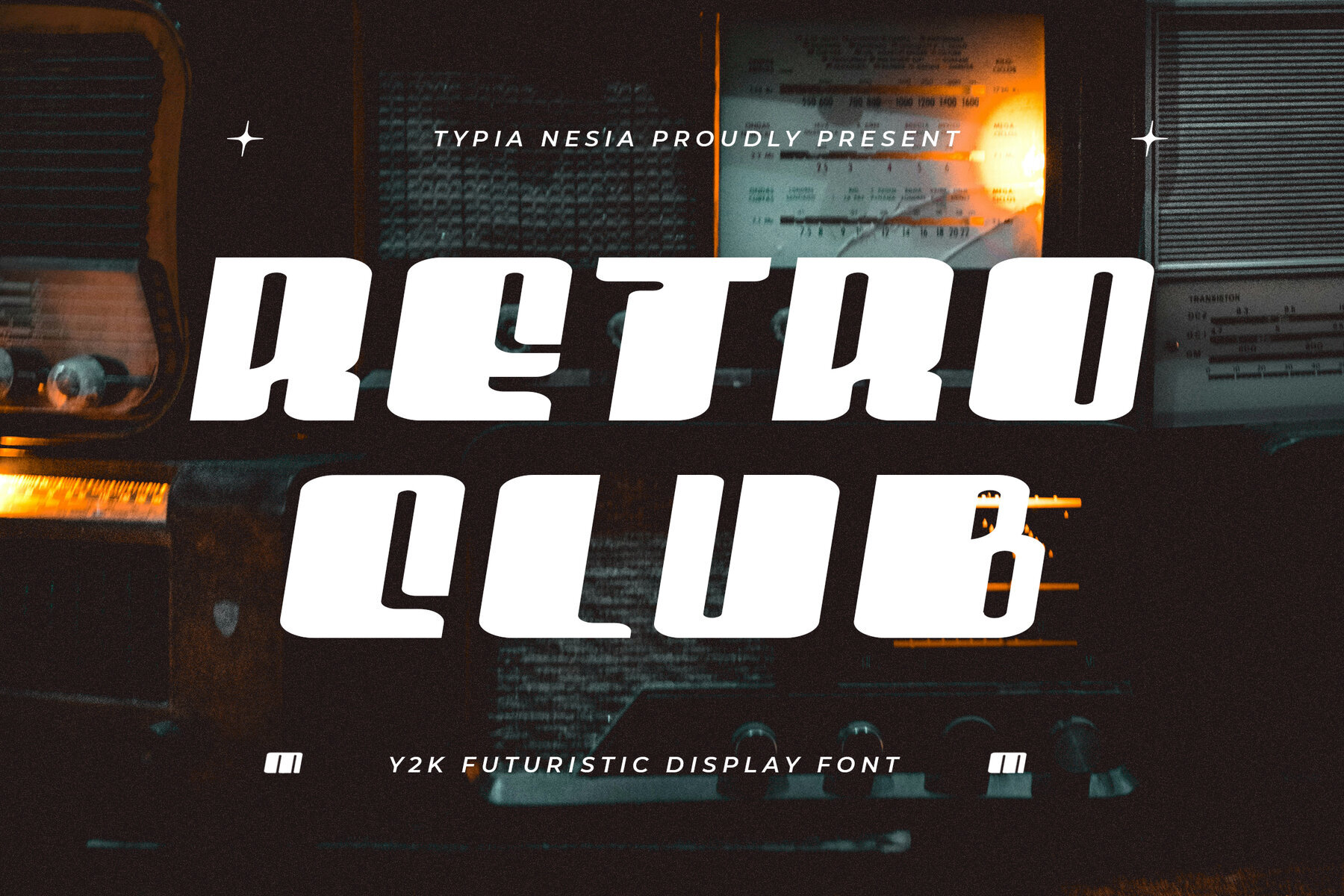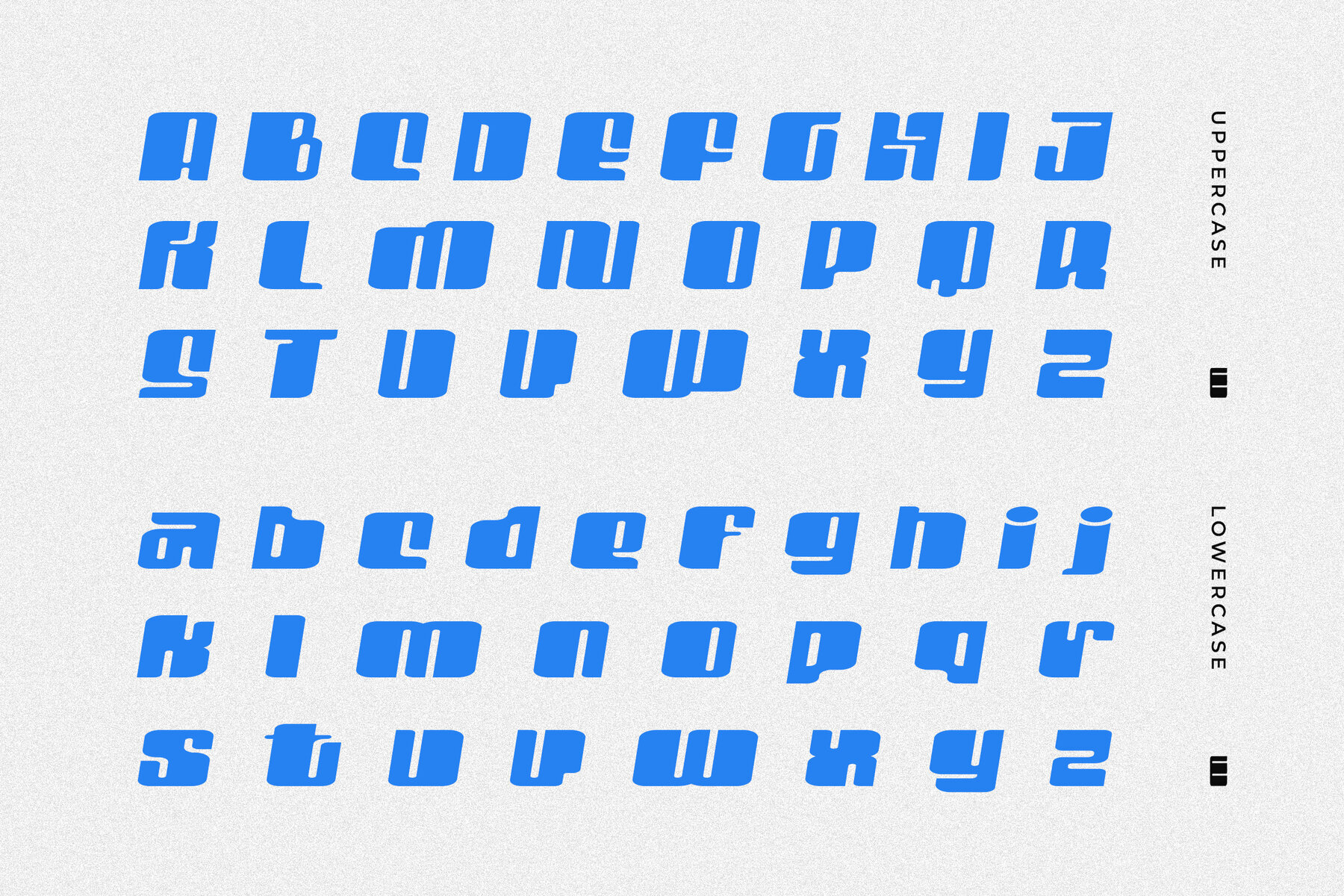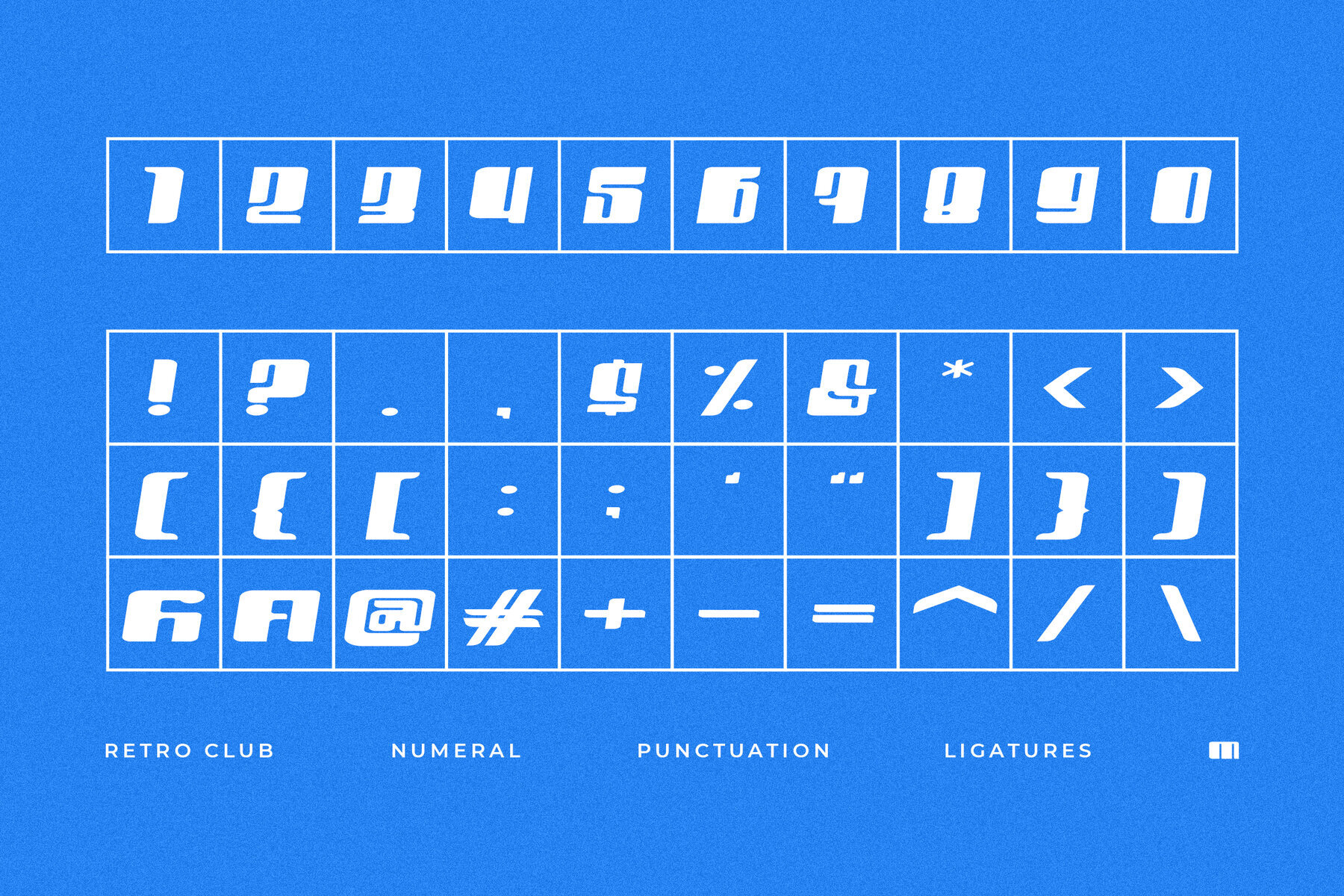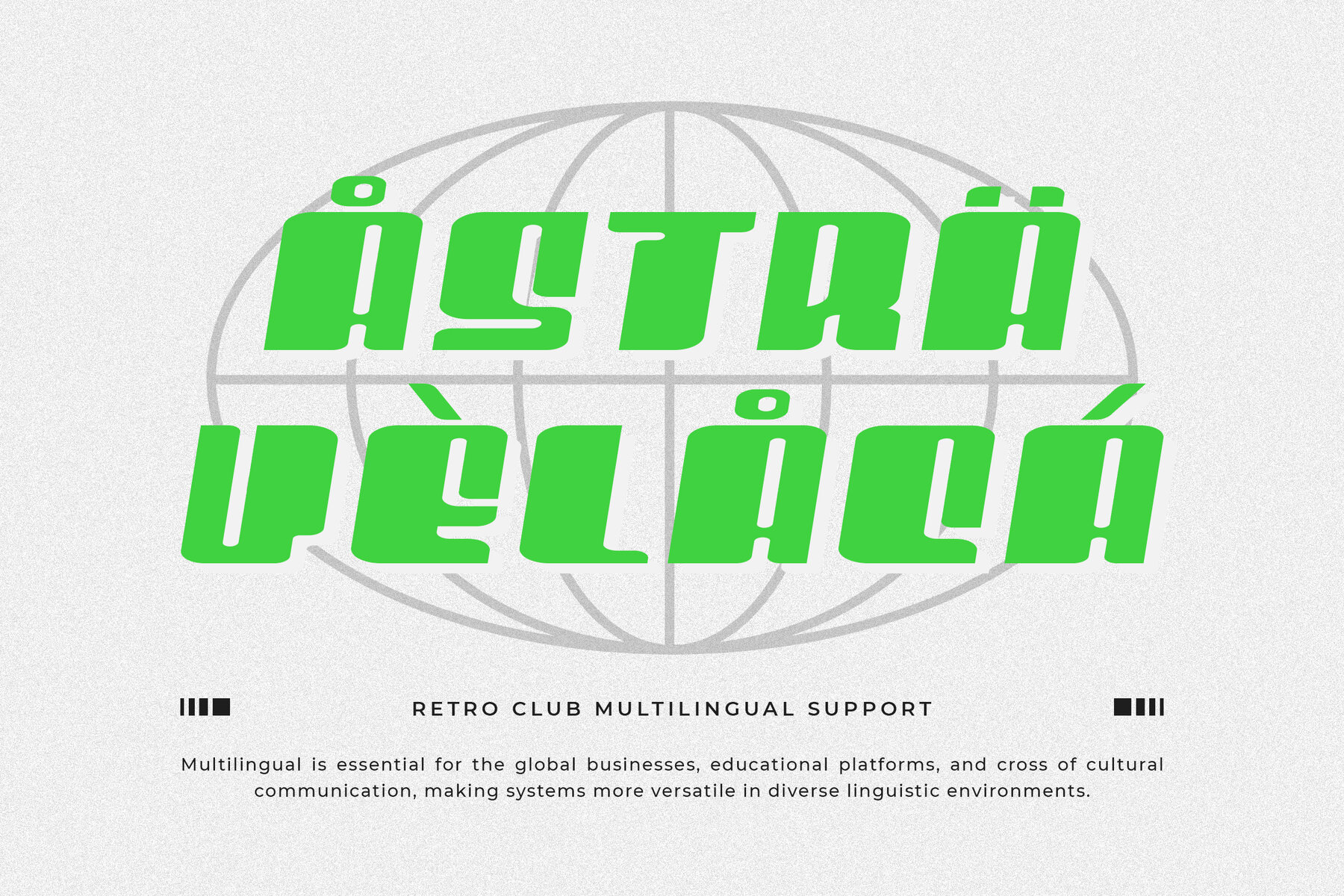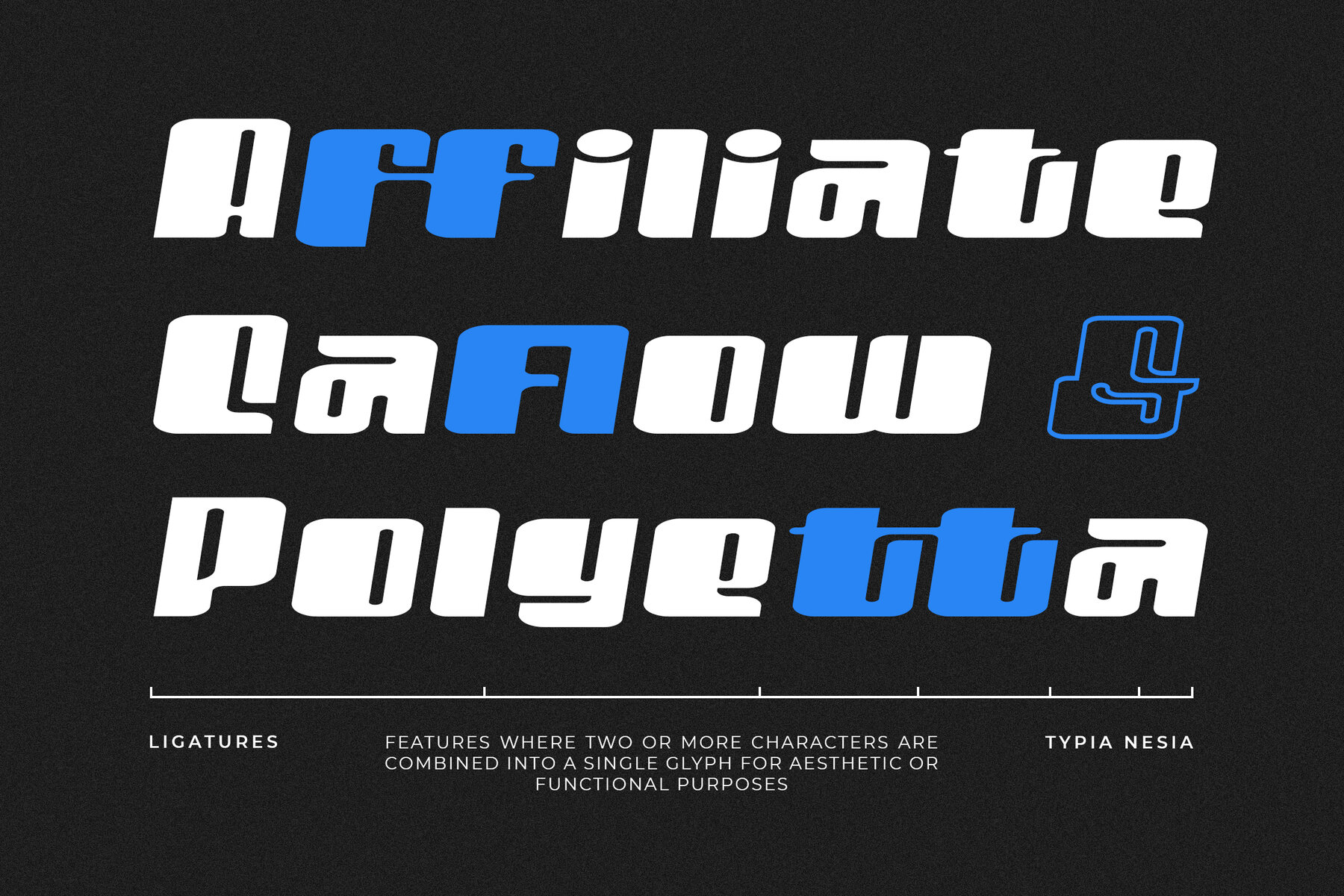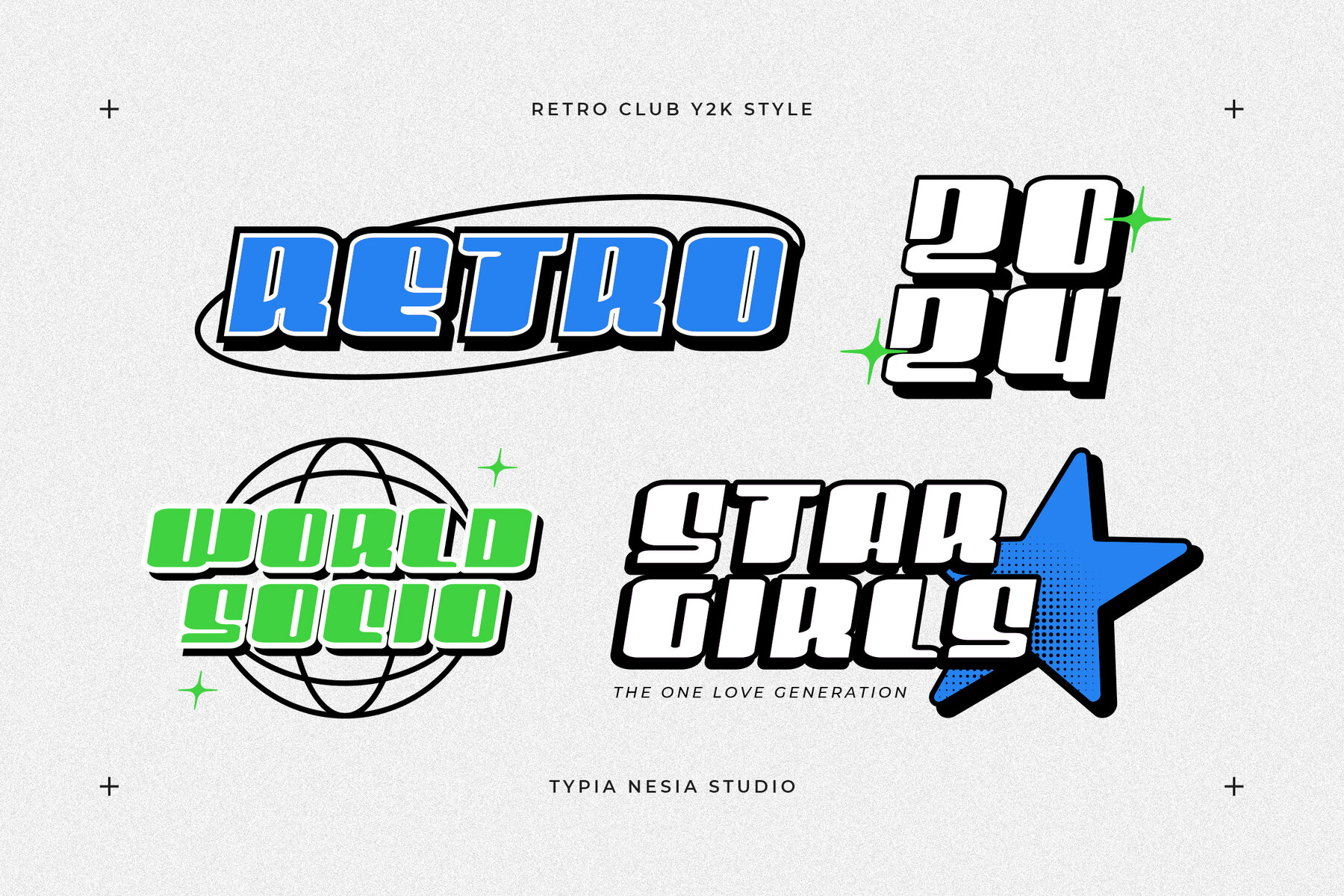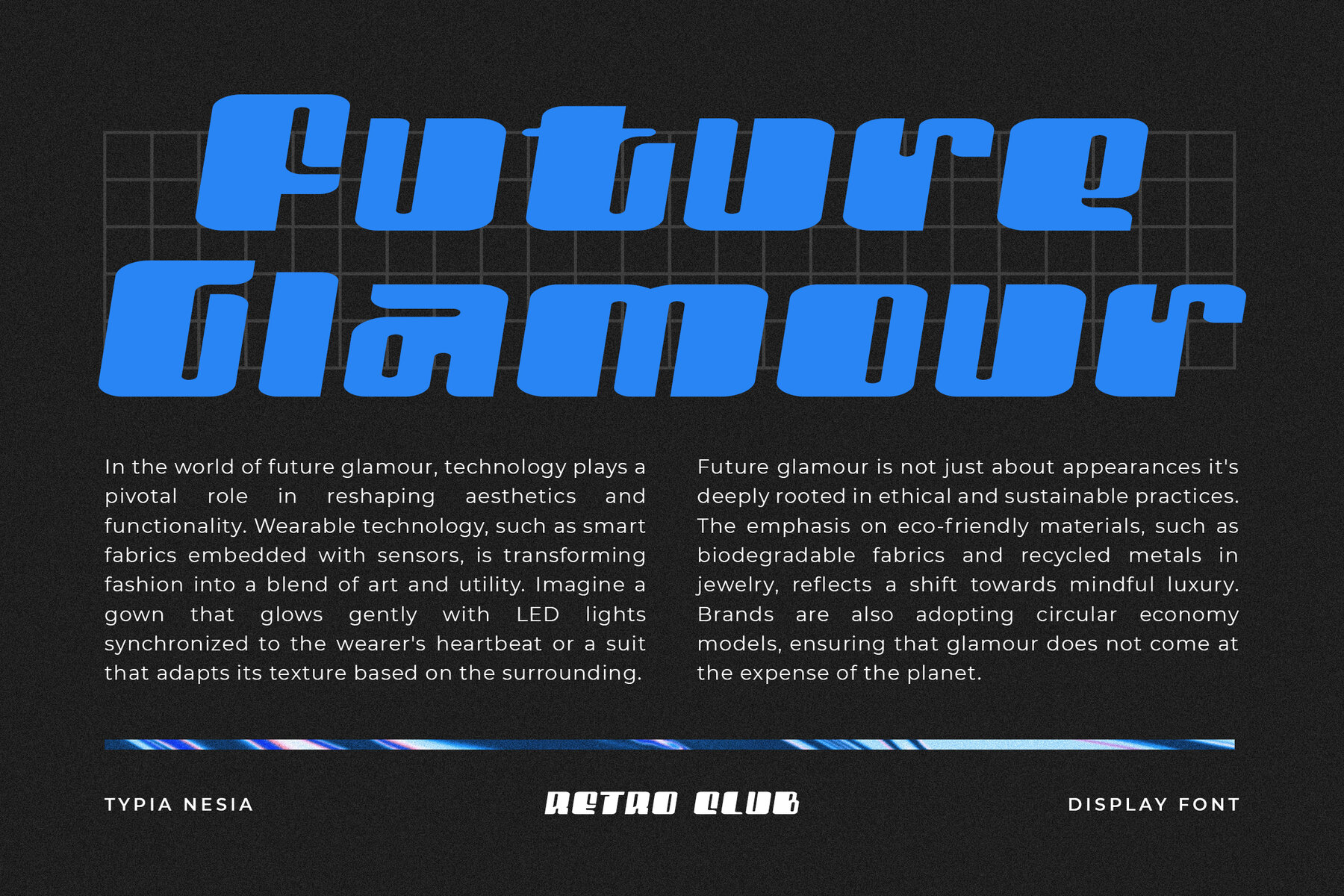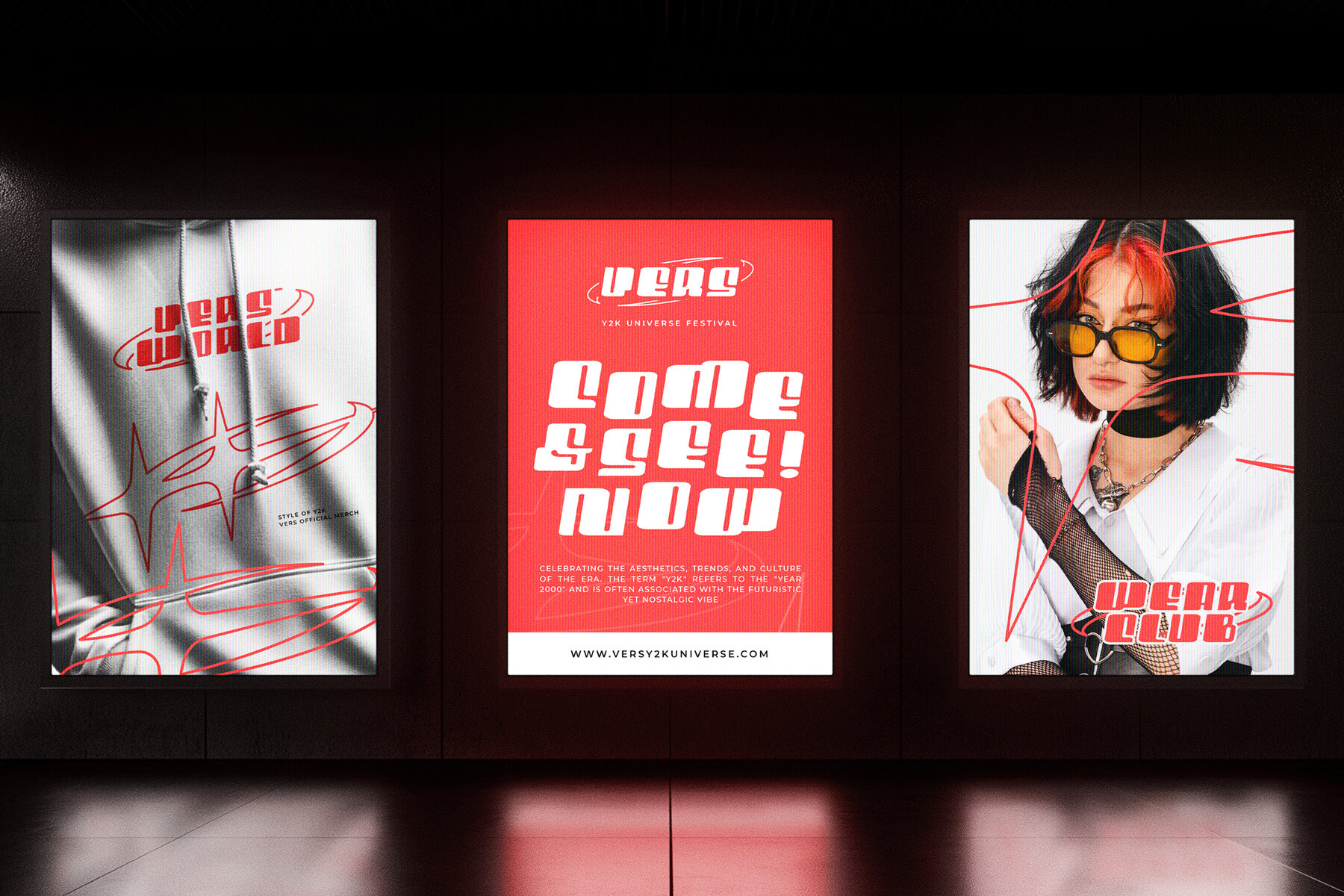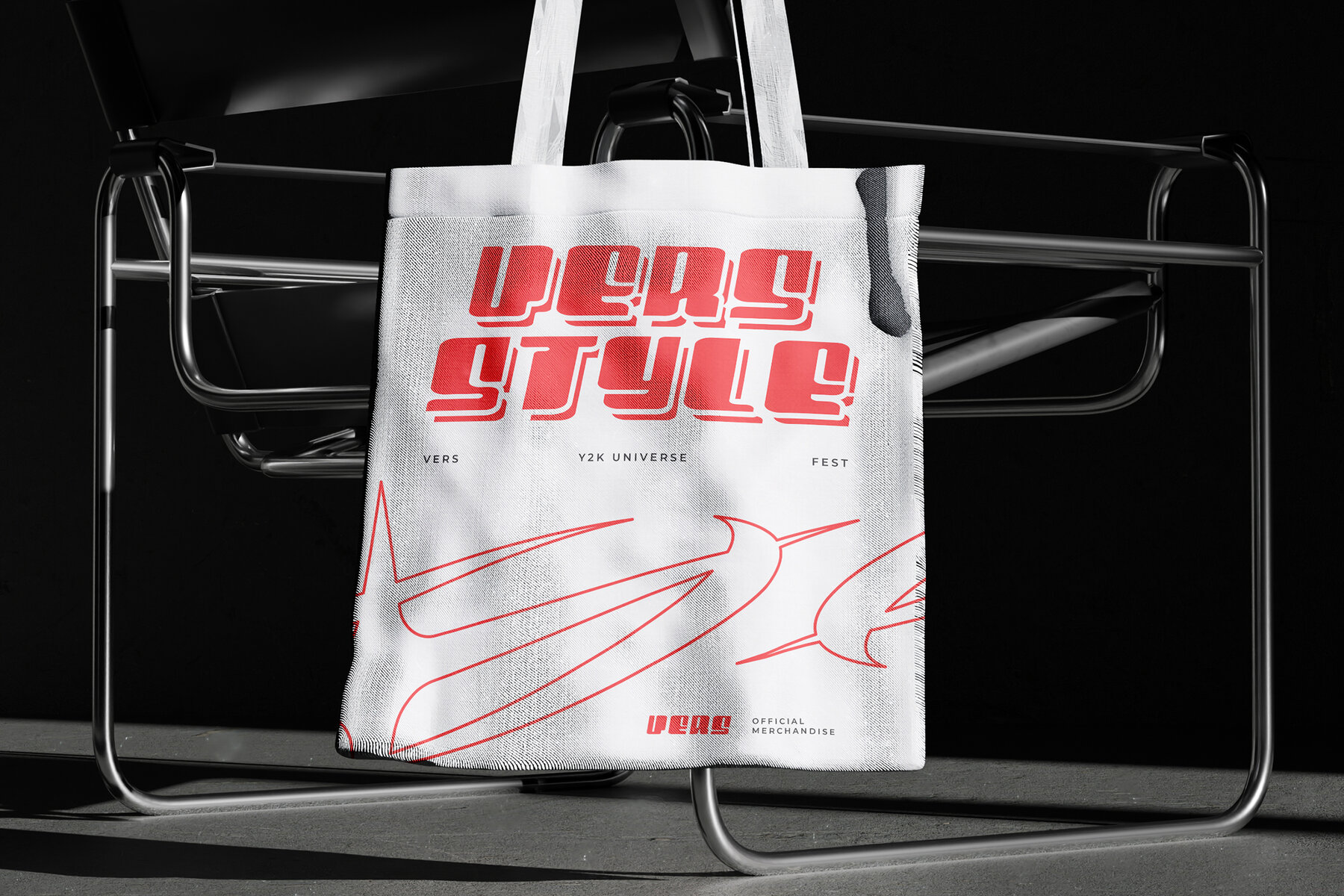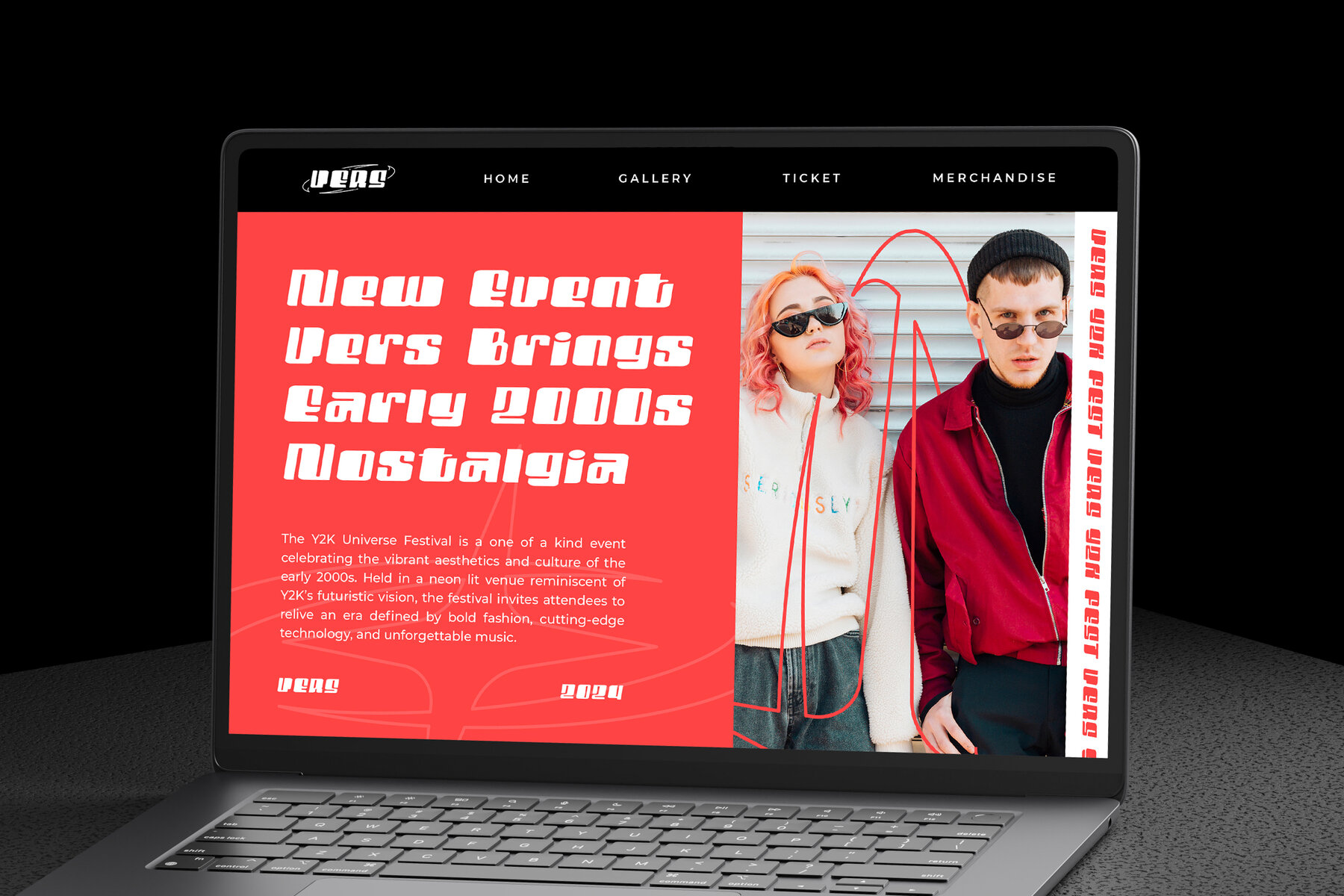
Retro Club Font
Retro Club Regular
Retro Club is a bold italic display font that infuses modern retro style with a techno-inspired twist. Its energetic and stylish design makes it ideal for projects needing a bold and dynamic aesthetic, like branding, gaming titles, sci-fi posters, tech branding, digital artwork, music album covers, and logos. Whether you're aiming for a vintage touch or a futuristic flair, Retro Club offers both versatility and boldness.
Featuring a complete set of uppercase and lowercase letters, punctuation, numerals, and ligatures, this font also provides exciting alternates for creative customization. With multilingual support, Retro Club is designed to cater to a global audience, ensuring your designs have international reach. Perfect for creatives seeking a balance between retro aesthetics and modern innovation, Retro Club adds a striking presence to any visual concept.